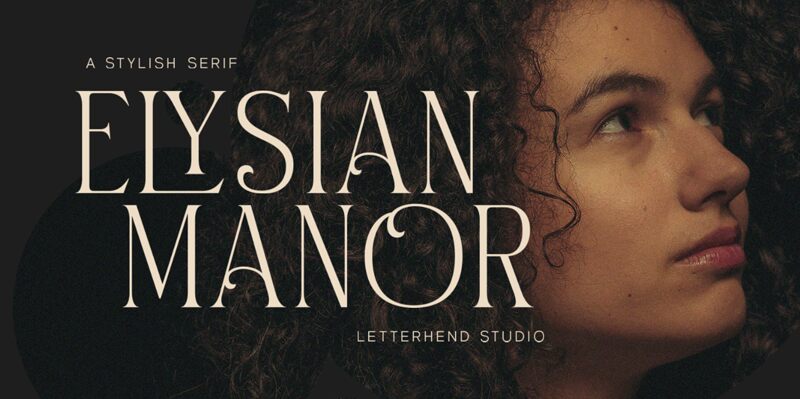
Elysian Manor font by Letterhend Studio is a free font filled with luxurious, sophisticated, and refined beauty. With its clean and artistic form, the typeface captures a sense of traditional aesthetics by integrating decorative accents. Inspired by classic letterings and fonts, it is both contemporary and elegant and a pleasure to view or use for your typography! The font is well-suited for both small and large types and appears equally pleasing when given a closer or farther look.
Elysian Manor is for all sorts of formal and informal titles, short and long paragraphs, and other texts. Integrate it into your editorial designs, website interface texts, or brand and packaging visual identities. Use it for logos, printed stationery, or signage typography for maximum impact. This eccentric typeface can also go into movie titles and video game titles or into advertisements and promotions.